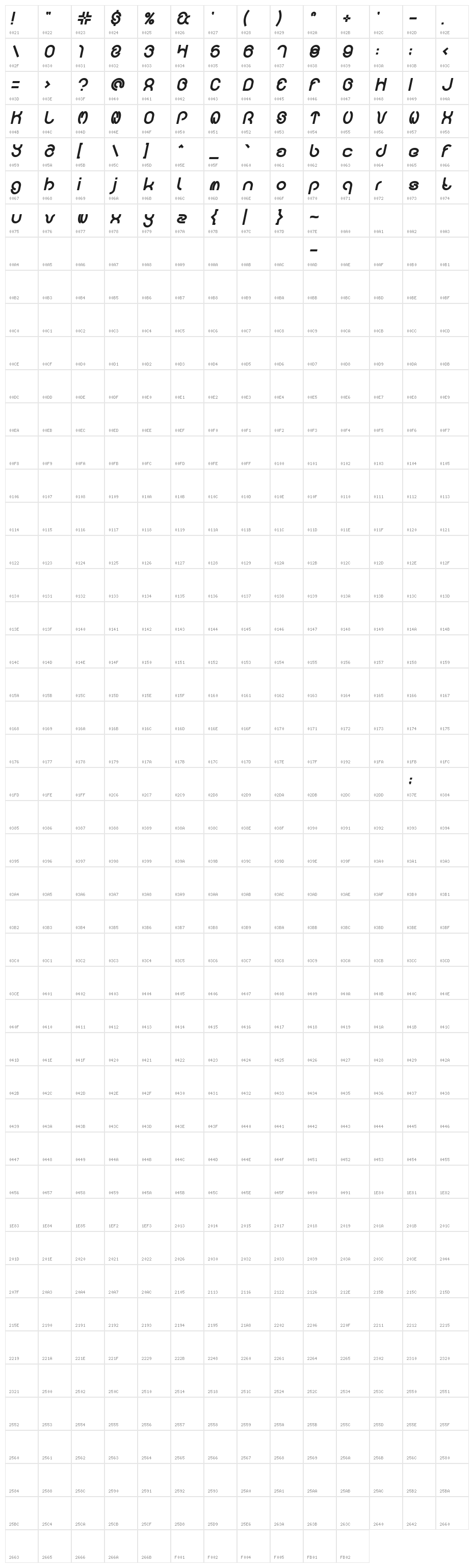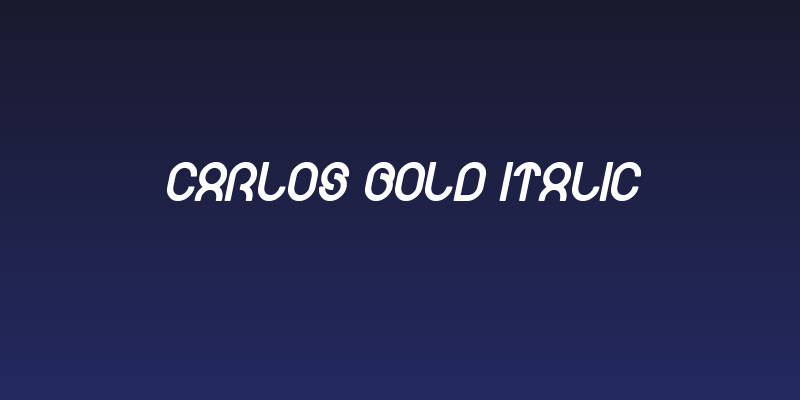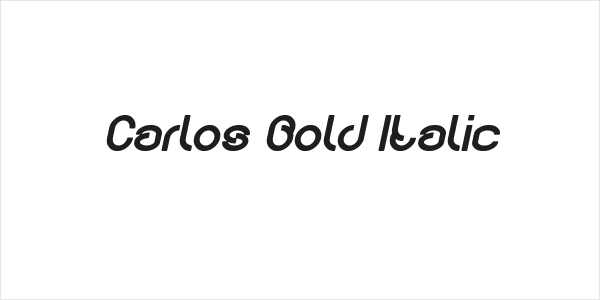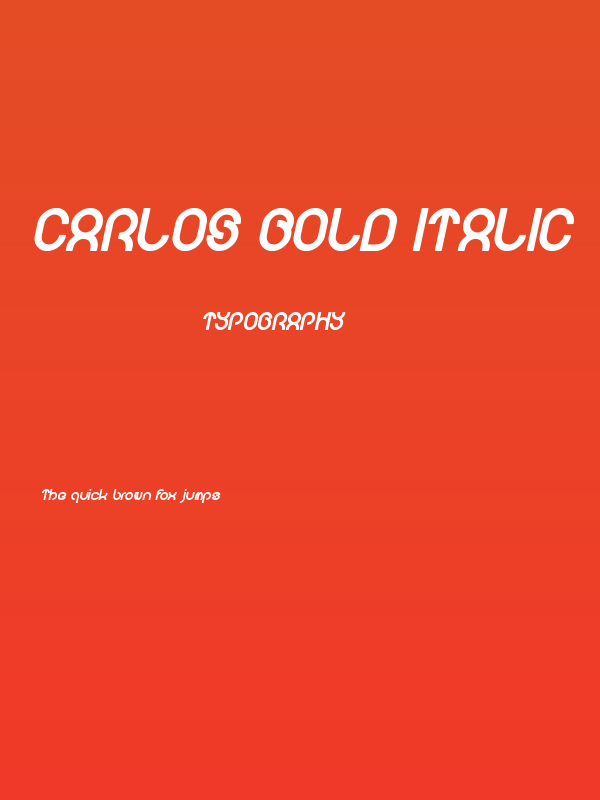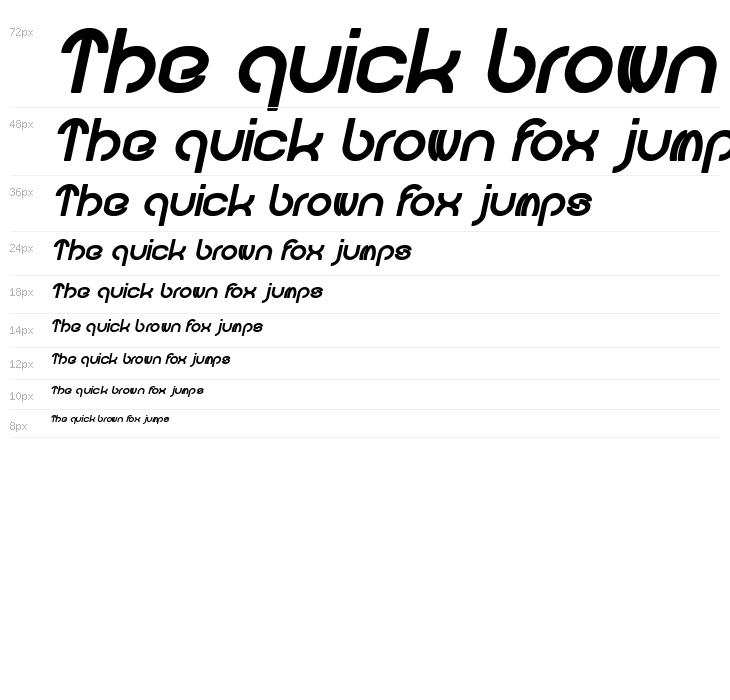
Carlos Bold Italic Font
Carlos Bold Italic Description
This font exhibits a bold and italicized style, characterized by its thick strokes and slanted orientation. The letters are rounded and smooth, with a consistent stroke width that gives it a robust appearance. The uppercase and lowercase letters maintain a cohesive design, with the lowercase letters mirroring the uppercase in style but with a slightly more compact form. The numerals are equally bold and maintain the same slant, ensuring uniformity across all characters. Special characters are designed to match the overall aesthetic, providing a seamless integration with the alphabet and numerals. This font's boldness and slant make it stand out, offering a dynamic and energetic feel.
| Proposed Projects | Ideal for branding, advertising, and headlines where a strong, dynamic presence is desired. |